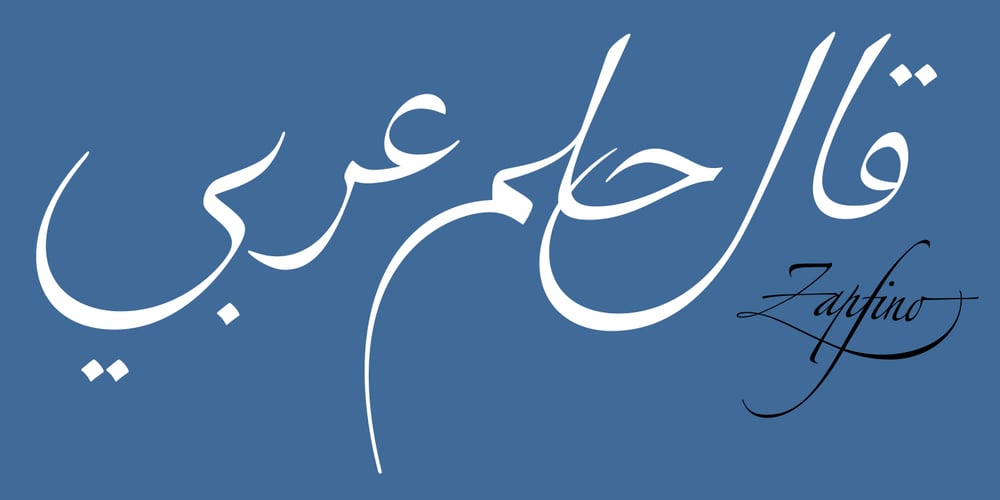
Zapfino Arabic
Zapfino Arabic font
Zapfino Arabic Font Family was designed by Nadine Chahine and published by Linotype. Zapfino Arabic contains 1 styles and family package options. Zapfino Arabic is designed by Nadine Chahine as the Arabic companion to Hermann Zapf’s iconic Zapfino typeface, with the approval of Prof. Zapf. The design is an evolution of Arabic calligraphic traditions that combines Naskh and Nastaaliq to form a backward slanted calligraphic style. The character proportions refer to Naskh traditions but the isolated and final forms bring with them an exaggerated swash-like movement that references the extravagant ascenders and descenders of Zapfino. The font contains a large number of contextual variants that work to create a smooth flow of pen movement, as well as 10 stylistic sets. The character set supports the Arabic language as well as basic Latin. Zapfino Arabic is meant to be used as a display typeface, for logos, greeting cards and short headlines. It could also work for short pieces of text, for poetry or chapter introductions, when used in a generous type size and with ample space around it. Its design is soft and elegant, and leaves a lot of room for typographic playfulness.